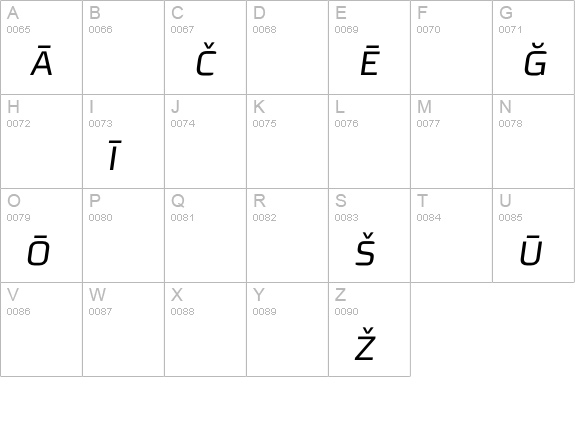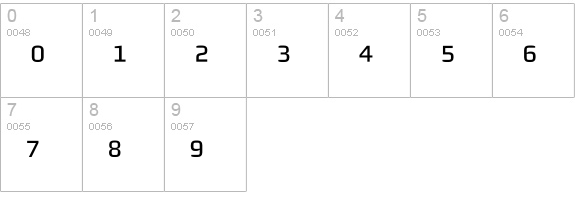
MorganSnPi Oblique Font Details
MorganSnPi Oblique is a distinctive, italic variant in the MorganSnPi typeface family \xE2\x80\x94 well suited to design and typography projects.
MorganSnPi Oblique is a sophisticated and stylish font that adds a touch of elegance to any design project. With its unique slanted style and sleek lines, this font is perfect for creating eye-catching headlines, branding materials, and more. The modern yet timeless design of MorganSnPi Oblique makes it versatile for both digital and print applications. Best of all, MorganSnPi Oblique is available for free download at FontsMarket.com. Whether you're a graphic designer looking to enhance your portfolio or a small business owner in need of a fresh look for your marketing materials, this font is sure to impress. Don't miss out on the opportunity to elevate your designs with the sleek and sophisticated MorganSnPi Oblique font. Download it for free today and start creating stunning visuals that stand out from the crowd.